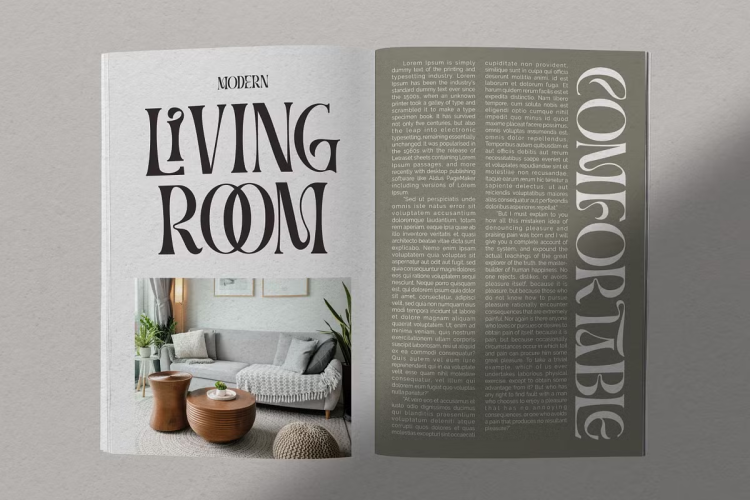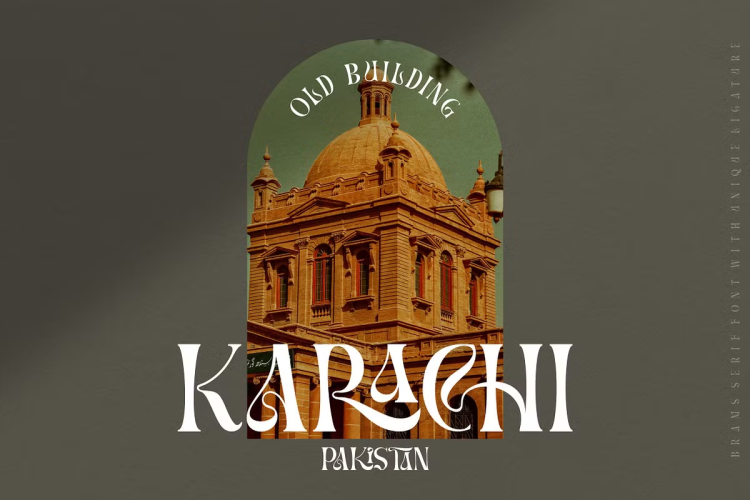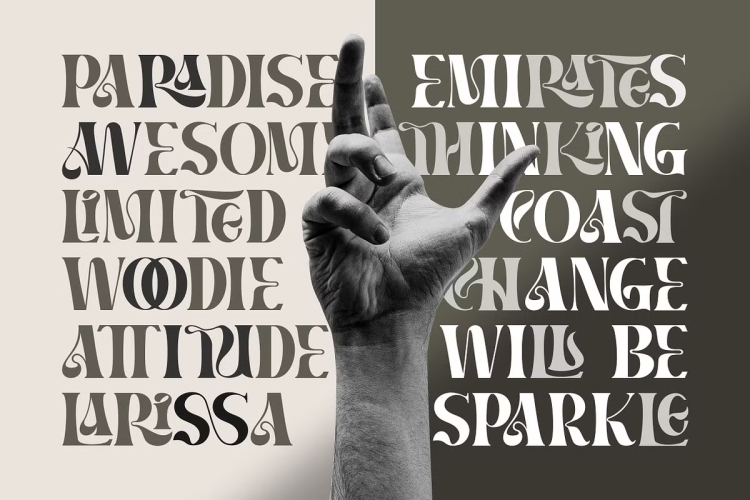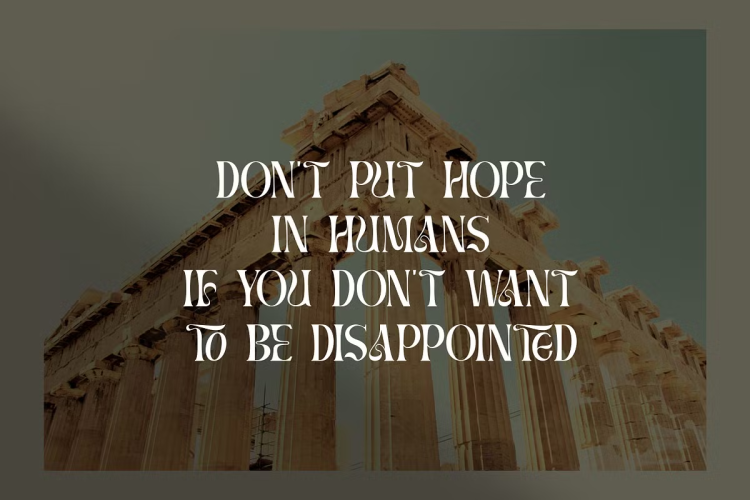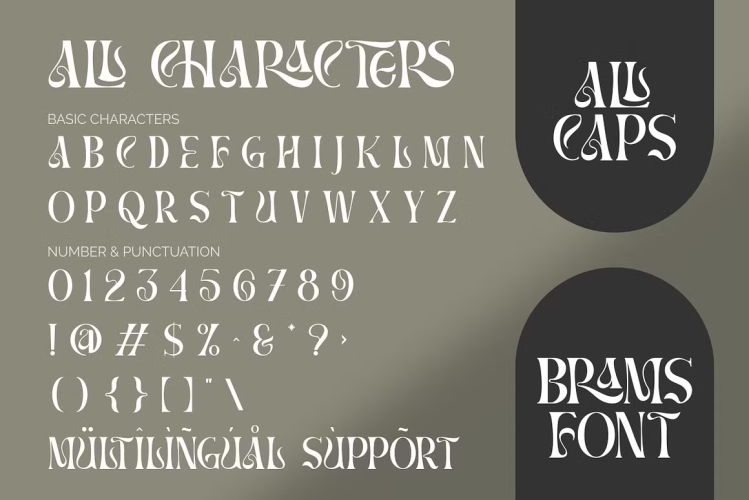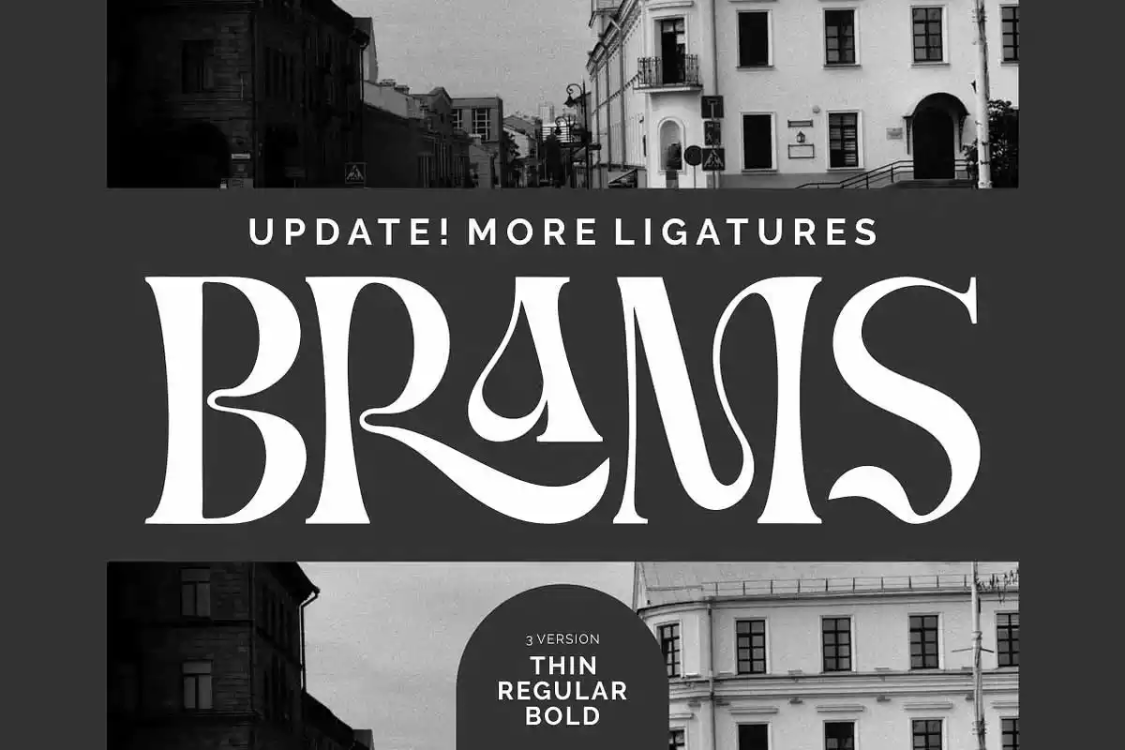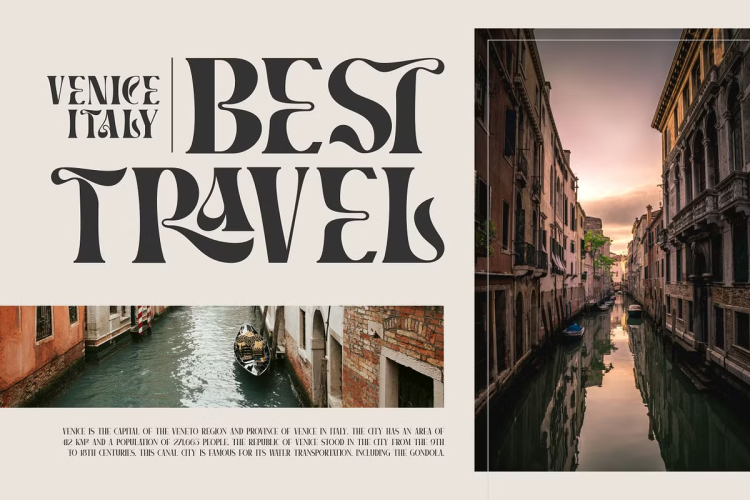
Brams Font
Brams is a display serif font. This font has a unique and sleek letterform, making it great for a modern and minimalistic design theme. The unique ligatures on the serif…
Brams is a display serif font. This font has a unique and sleek letterform, making it great for a modern and minimalistic design theme. The unique ligatures on the serif make this typeface cool and stand out more than the regular serif font. It is perfect for headlines, logos, posters, packaging, T-shirts, coffee shops, restaurants, magazine headers, signs or gift/postcards, cafes, weddings, or any advertising purpose.
additional ligature ( ra ro re ru ri rm rs rc ch ka ko ke ku ki la lo le lu li ll ls ld oo aw ts oc fa eh ek er tk tu th ga ya st ah rt ks og go za zo ze zu zi zs zd qa qo qe qu qi qs qm ss tt ta ti to te km ) additional version THIN – REGULAR – BOLD
Brams only comes with uppercase, numeral, punctuation, and ligament, supporting multi-language.
Where Brams Font works best
Brams Font is built for size: event posters, hero headlines and billboard-style layouts.
High contrast display type like Brams Font reads instantly in thumbnails and motion graphics.
What is Brams Font good for?